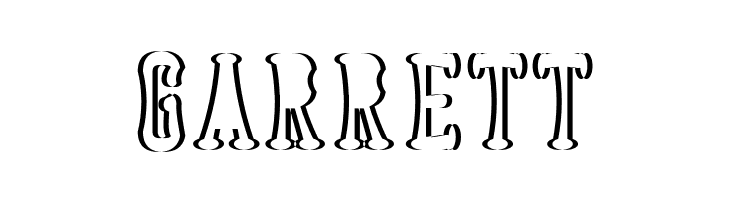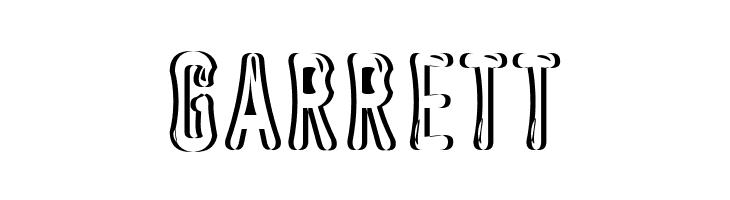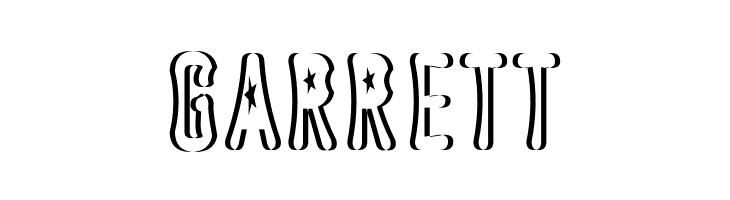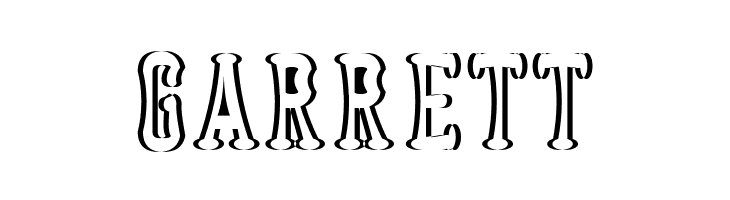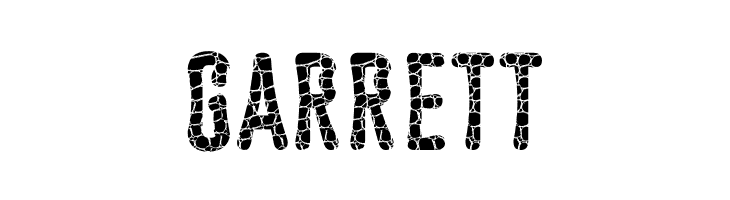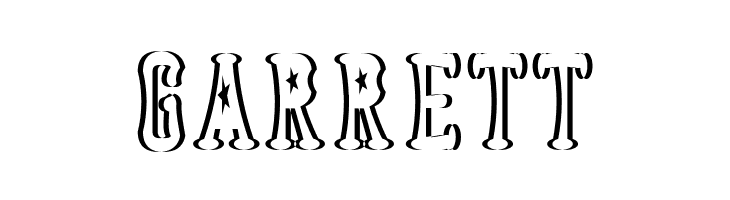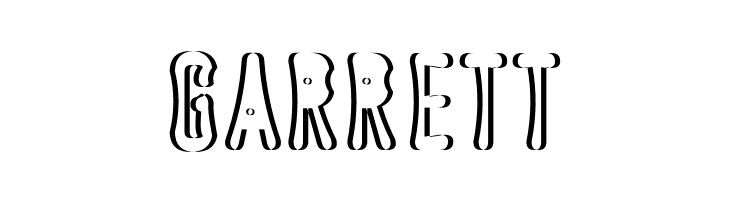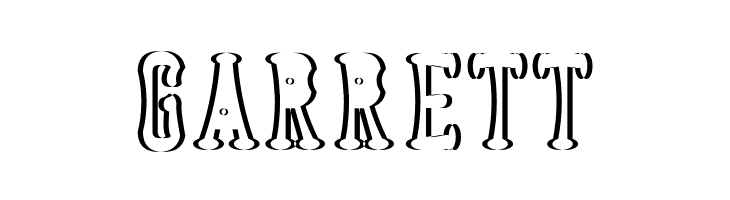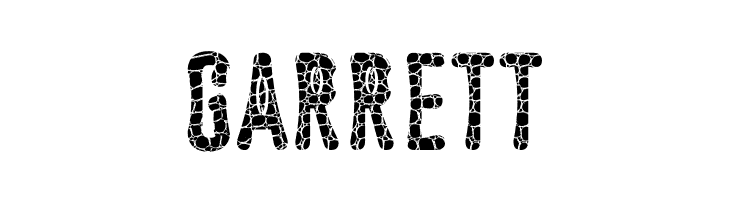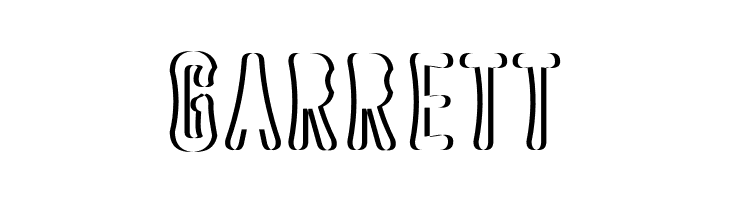
A bold, playful font with a distinctive shadow effect and cut-out style.
A decorative serif font with a shadow effect and vintage flair.
A bold, shadowed font with a playful, three-dimensional style.
A bold, shadowed serif font with a playful and dynamic style.
A bold, decorative font with star cutouts and a shadow effect for a 3D look.
A bold, decorative serif font with shadow effects and star cutouts.
A bold, decorative font with a shadow effect, blending modern and vintage styles.
A bold, decorative serif font with a shadow effect for a vintage, three-dimensional look.
A bold, textured font with a cracked, organic design.
A bold, textured font with a cracked, graffiti-like appearance.